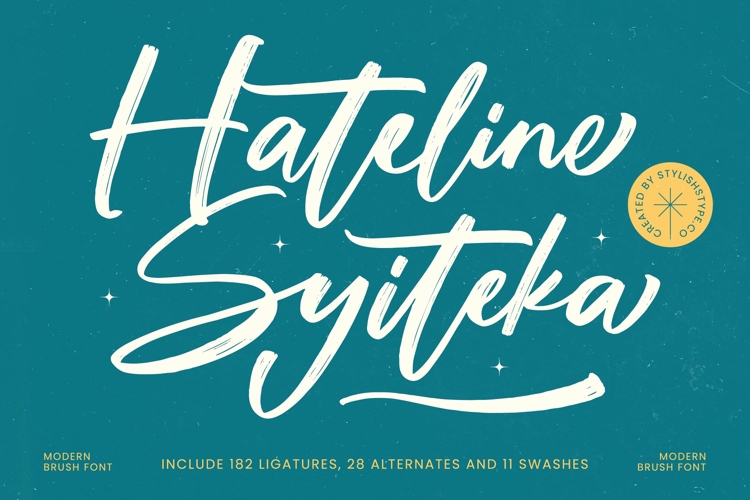
Hateline Syiteka - Modern Brush Font
Unleash unparalleled creative potential with Font Hateline Syiteka - Modern Brush Font Script, boasting an impressive suite of OpenType features including 182 ligatures, 28 alternates, and 11 swashes. These extensive stylistic options allow for bespoke typography, enabling designers to craft unique, dynamic compositions with ease. Its inherent flexibility ensures every headline, logo, or textual element commands attention, delivering a polished and memorable visual experience for any brand.
Expand your brand's reach effortlessly with the global adaptability of Font Hateline Syiteka - Modern Brush Font Script. With its extensive multilingual support, Font Hateline Syiteka - Modern Brush Font Script adapts seamlessly across global markets, making it incredibly versatile for international projects. This crucial feature ensures consistent brand messaging, transcending language barriers and resonating with diverse audiences worldwide, establishing a truly professional and inclusive presence.
Perfect for a myriad of high-impact applications, Font Hateline Syiteka - Modern Brush Font Script is your go-to for creating a truly distinctive identity. It's ideal for luxury branding, elegant packaging design, engaging social media graphics, exquisite wedding invitations, and impactful editorial layouts. Elevate your designs with this versatile and compelling brush script, ensuring your message is not just seen, but deeply felt and remembered.